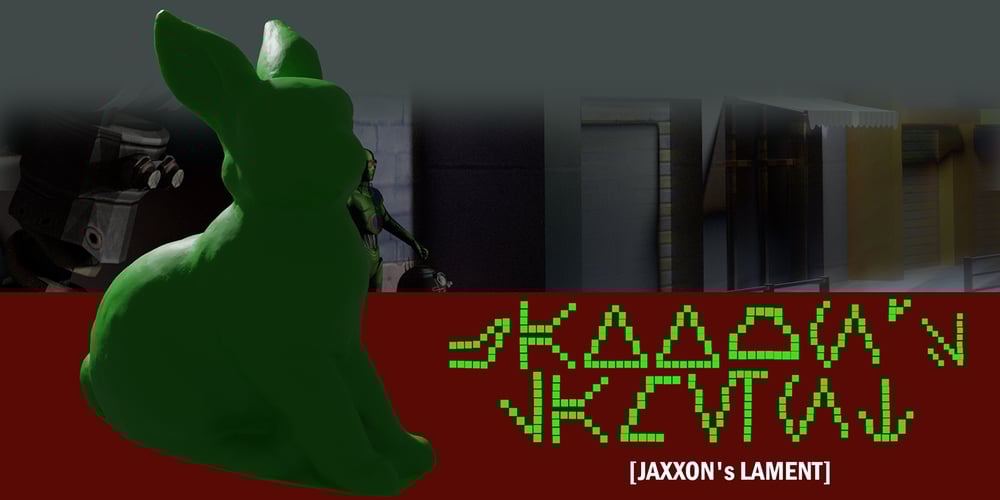
Jaxxons Lament
Jaxxons Lament font
Jaxxons Lament Font Family was designed by Edward Schneider and published by Edd’s Aurebesh Fontworks. Jaxxons Lament contains 1 styles and family package options. Although English characters do appear on screen, in Star Wars canon this “language” is known as High Galactic. The main written language in Star Wars is called Aurebesh. This font is designed for an interface or signage with a pseudo dot-matrix style. Aurebesh has more than 26 letters, the additional characters are available as glyphs in the set. Numbers and symbols in the Aurebesh fashion are also included.